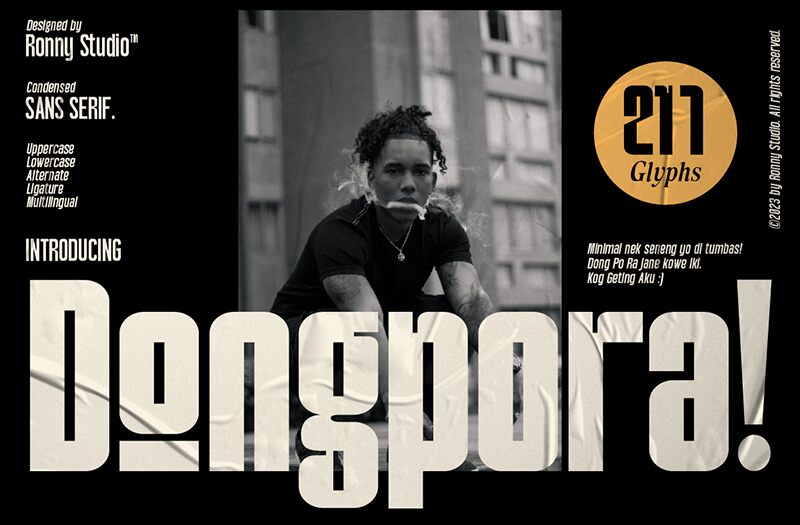
Dongpora font by Ronny Studio is a striking sans serif typeface featuring a distinct condensed style. Its bold and modern aesthetic makes it an ideal choice for impactful headlines and minimalist designs. The condensed form allows for space-efficient typography without compromising on legibility, making it perfect for both print and digital media.
This free font is particularly well-suited for branding projects, advertising layouts, or any creative endeavor that demands attention-grabbing text. Designers seeking to download a versatile typeface will find Dongpora an excellent addition to their toolkit, balancing style with functionality.